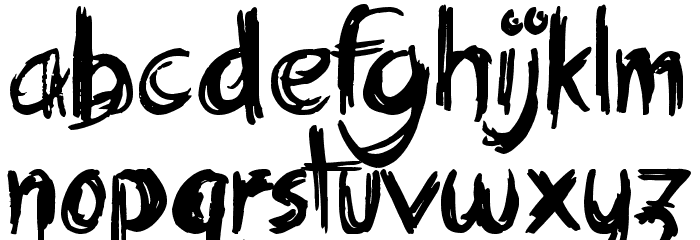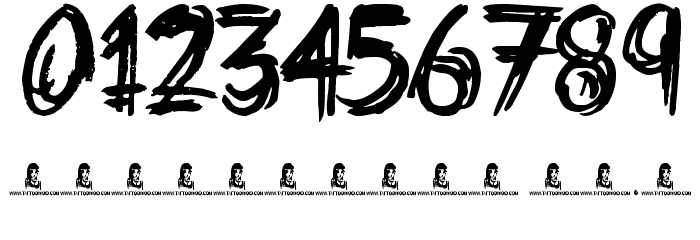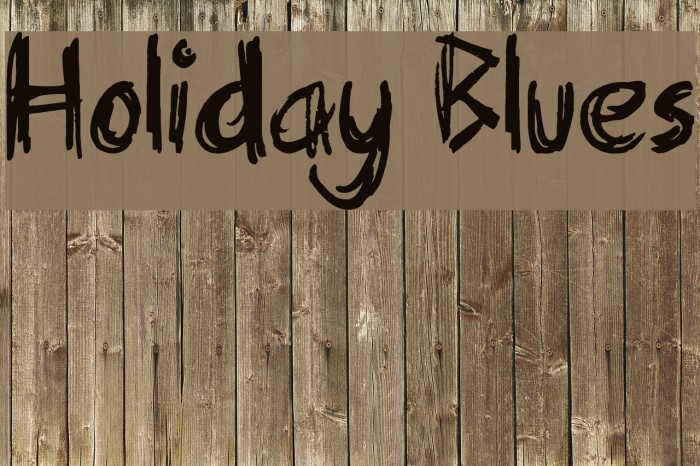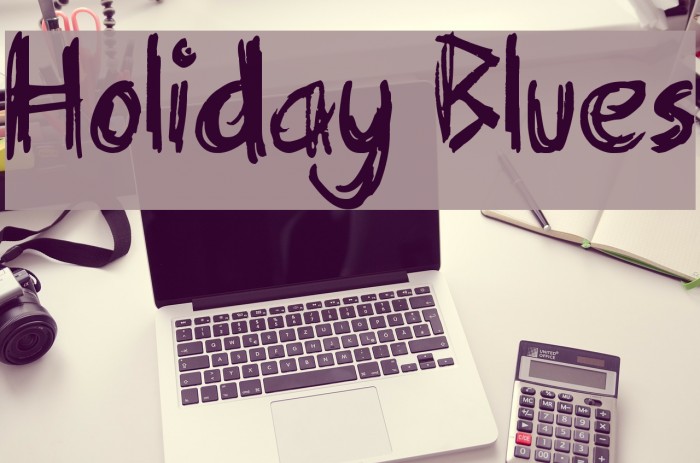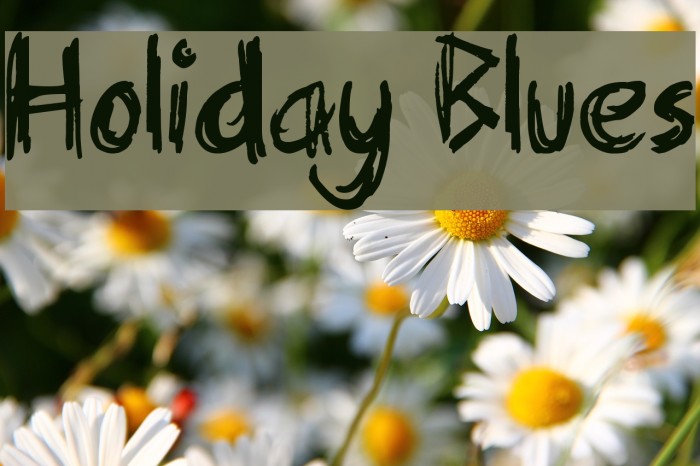
Holiday Blues Font
This font features a bold, expressive style with a brush-like texture that gives it a dynamic and energetic appearance. The letters are irregular and have a hand-drawn quality, with varying stroke thicknesses that create a sense of movement and spontaneity. The uppercase and lowercase letters maintain a consistent style, with exaggerated curves and angles that add to its artistic flair. Numbers and special characters are equally expressive, maintaining the same bold and textured look. This font is ideal for projects that require a creative and informal touch.
A bold, brush-style font with an expressive, hand-drawn appearance.
- Proposed Projects: Perfect for posters, album covers, artistic branding, and creative social media graphics.